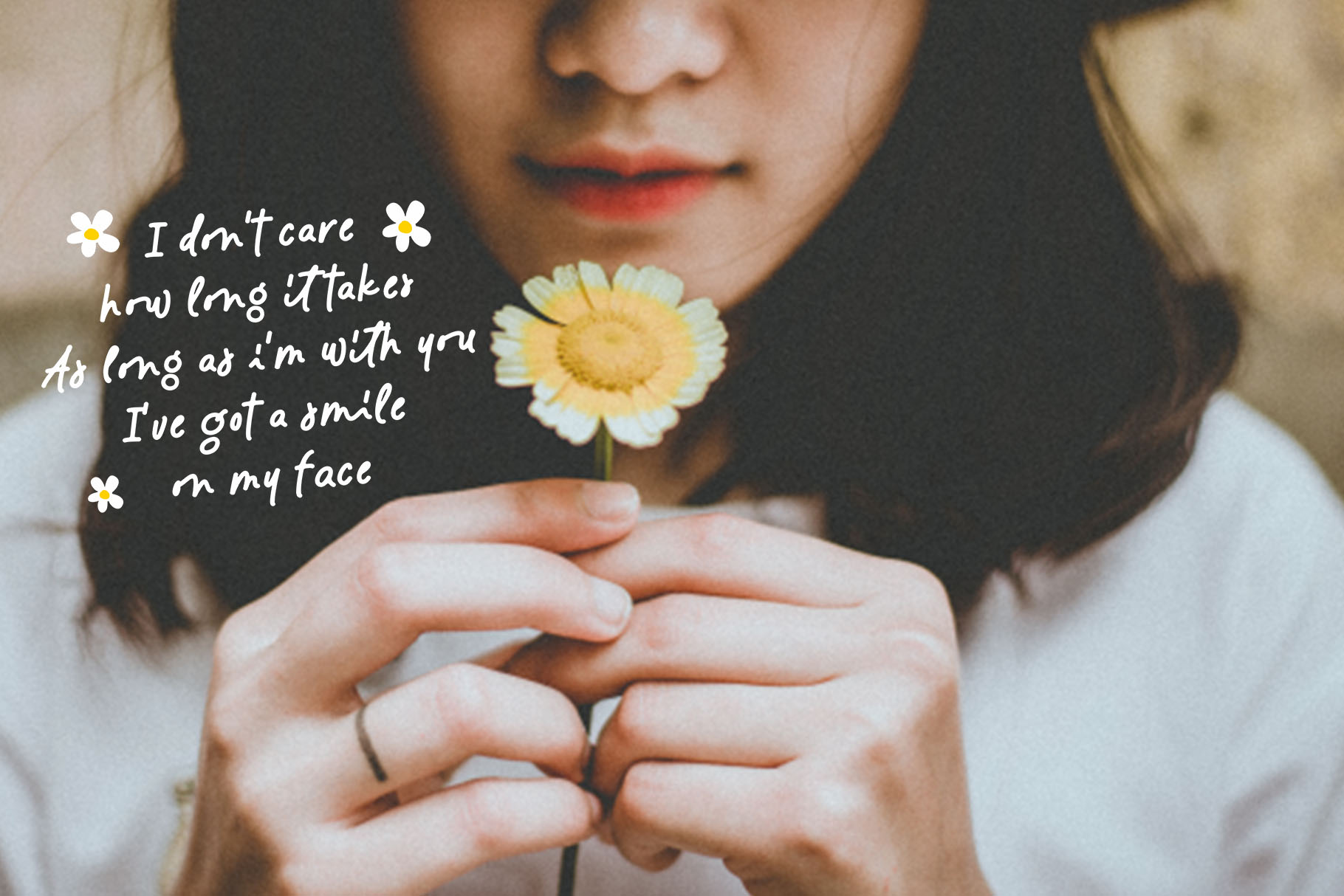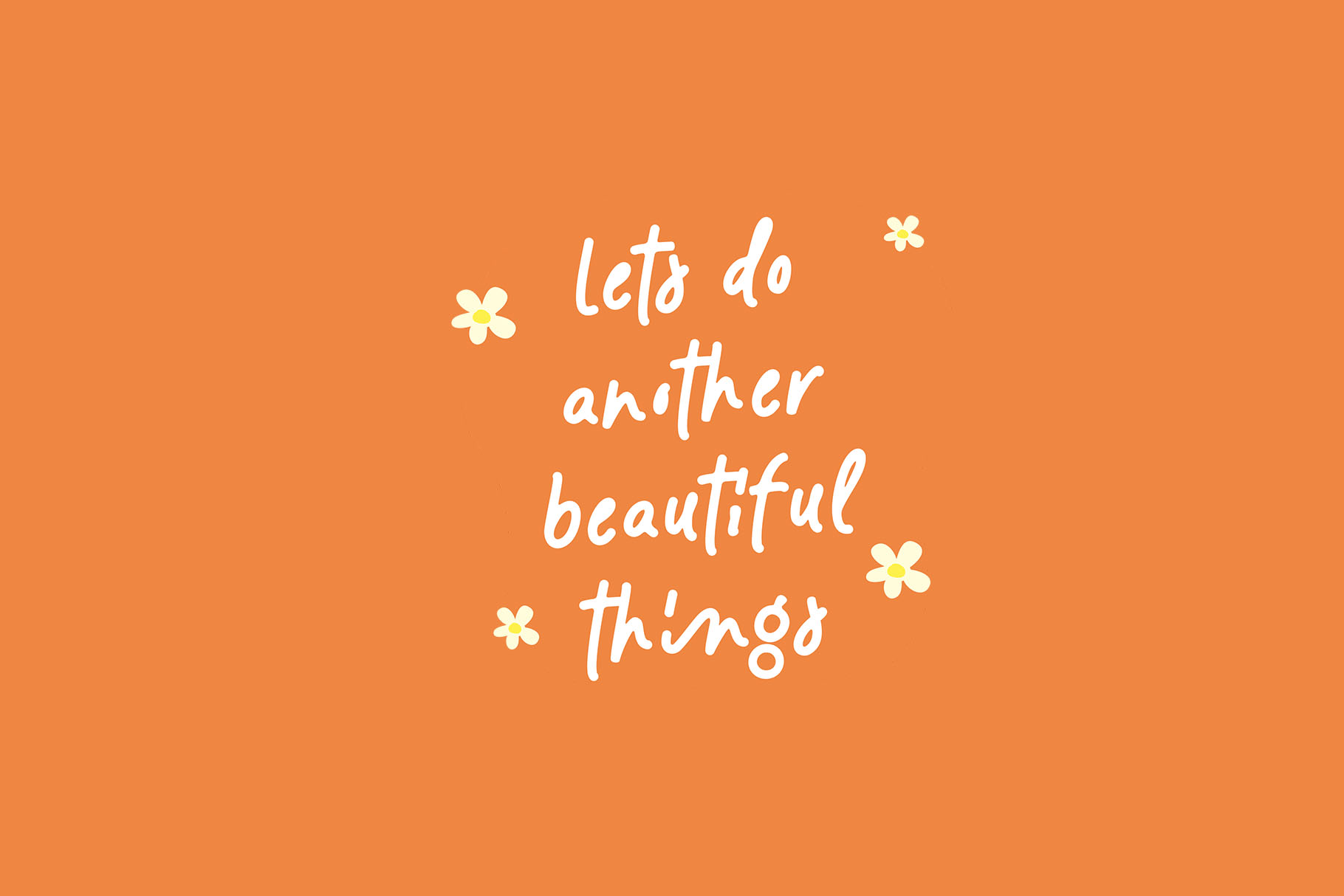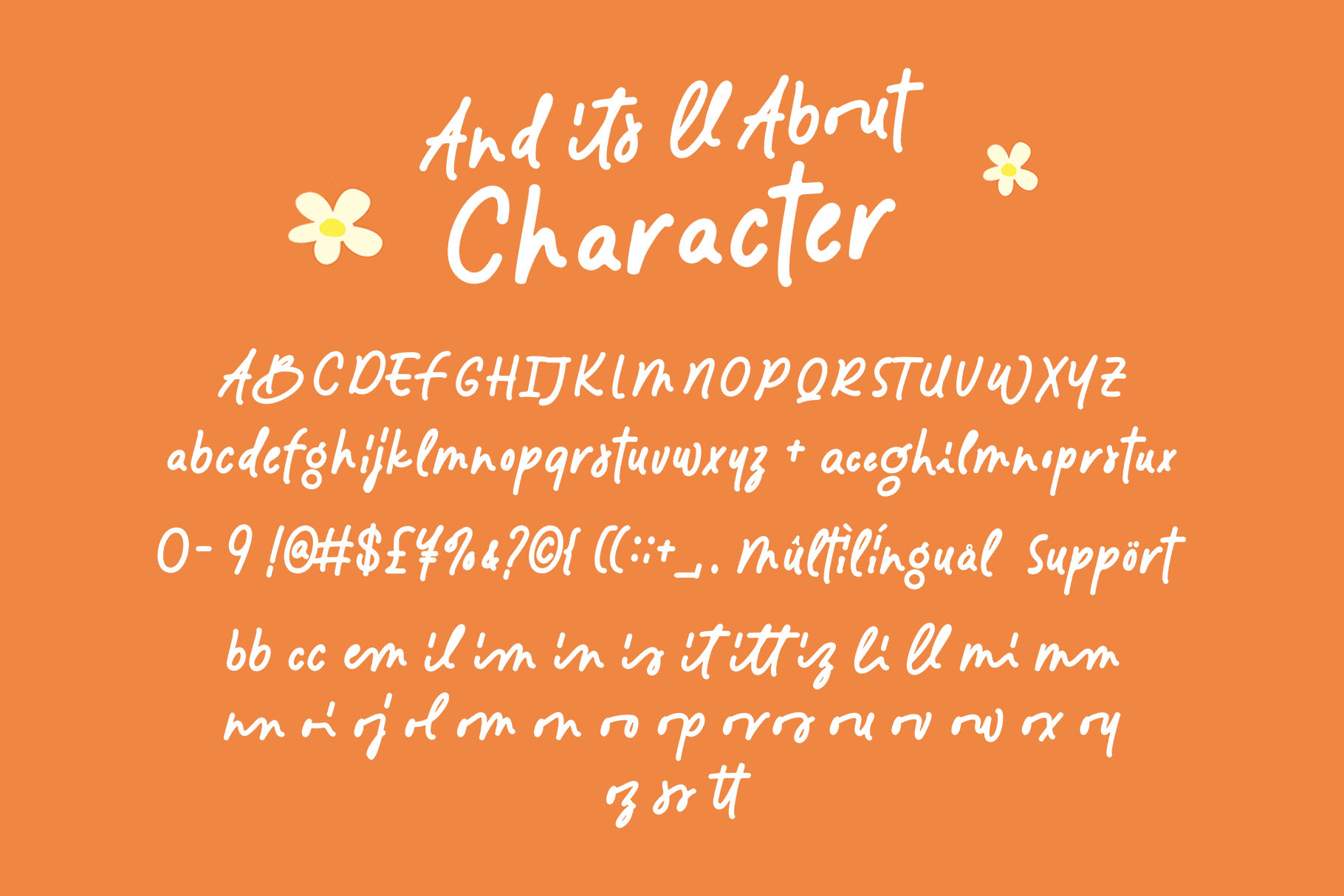
- Memoriz – A Cute Handwritten Font
Introducing ” Memoriz” – Your Go-To Handwritten Font for All Things Adorable! Say hello to the charm of “Memoriez” – the handwritten font that’s all about spreading happiness and cheer. Perfect for quotes, stickers, poster, soacial media content, and more, its playful style brings a smile to every design. And don’t worry, while it’s cute, it’s also super easy to read!